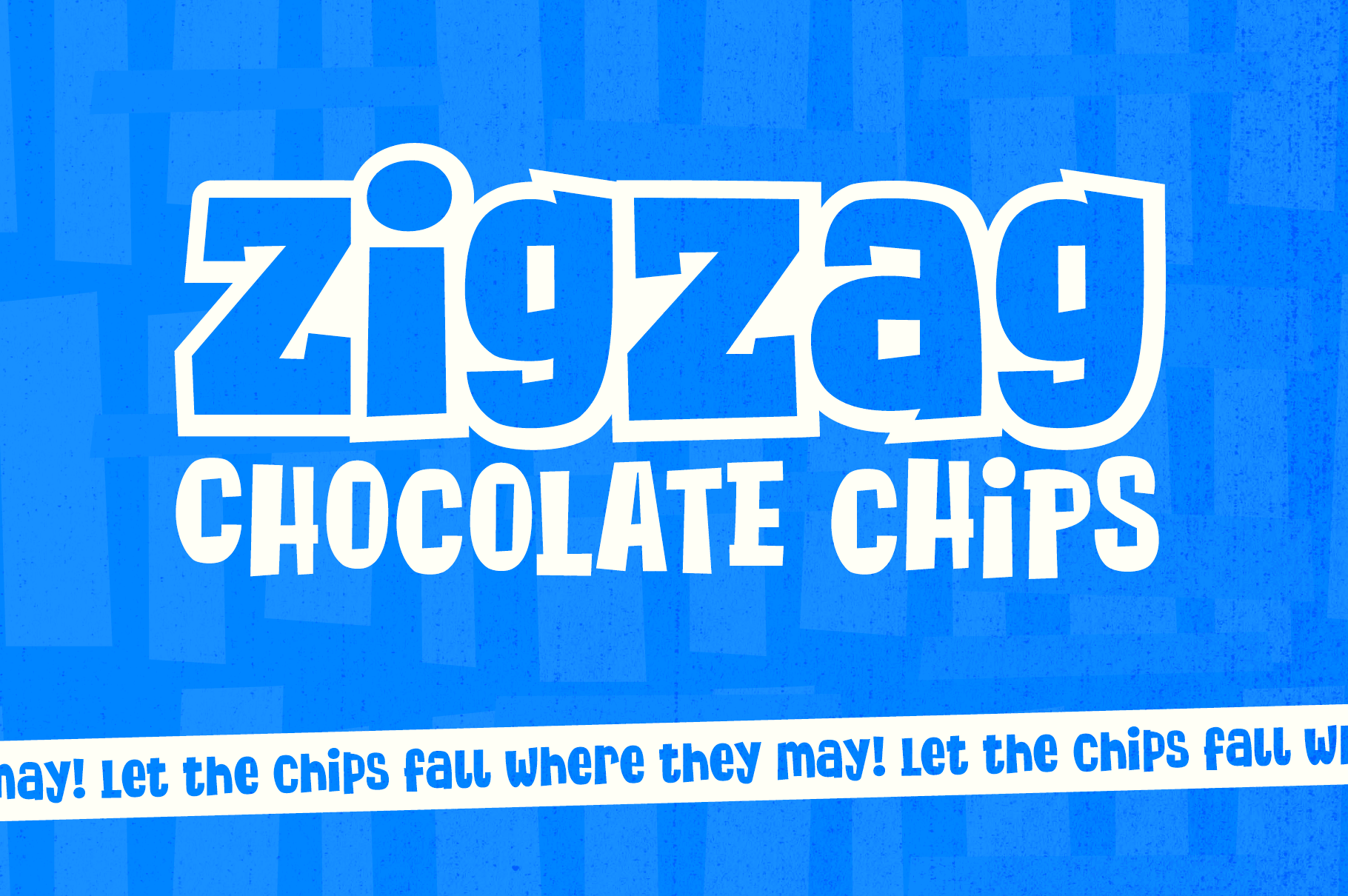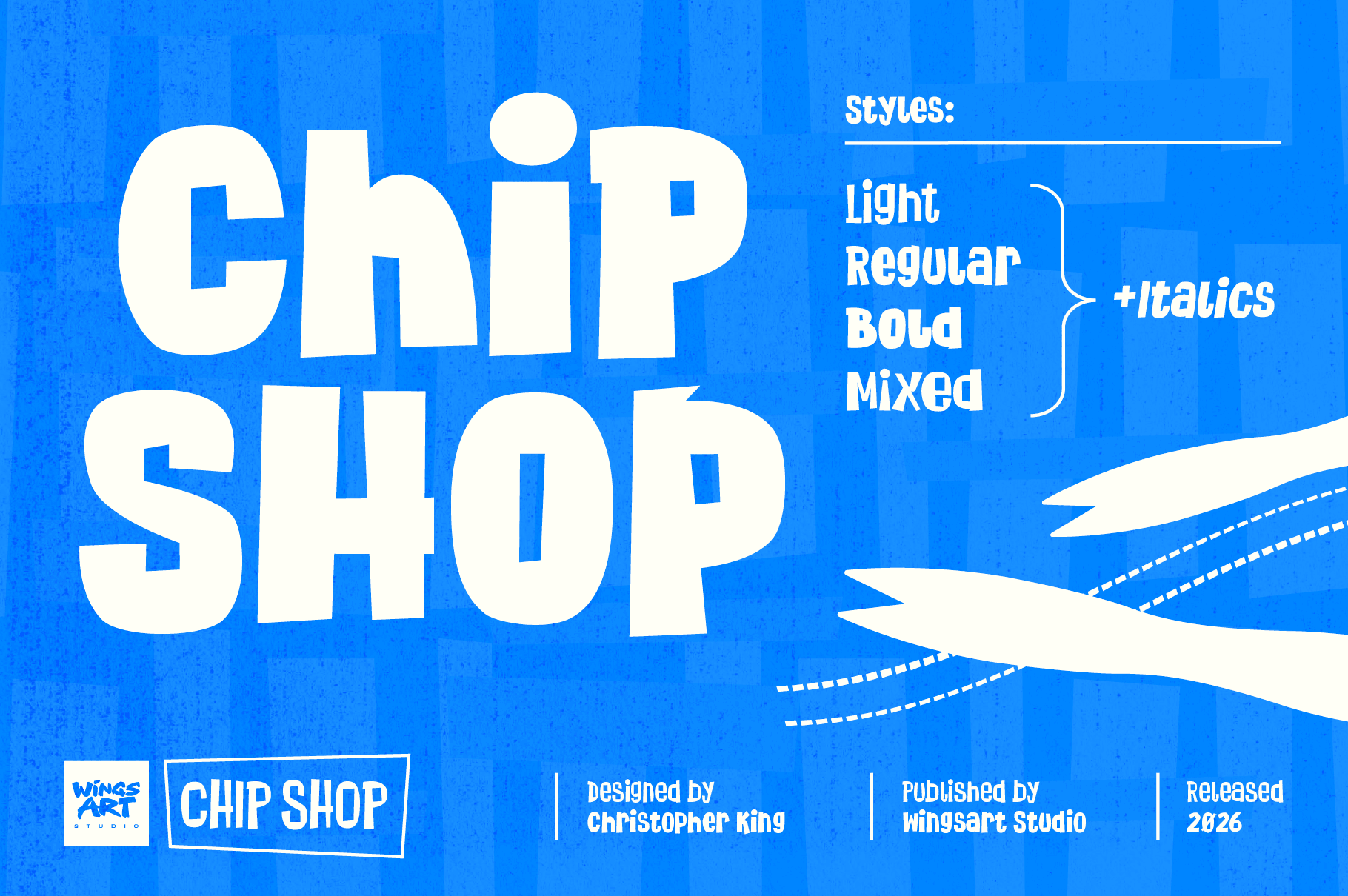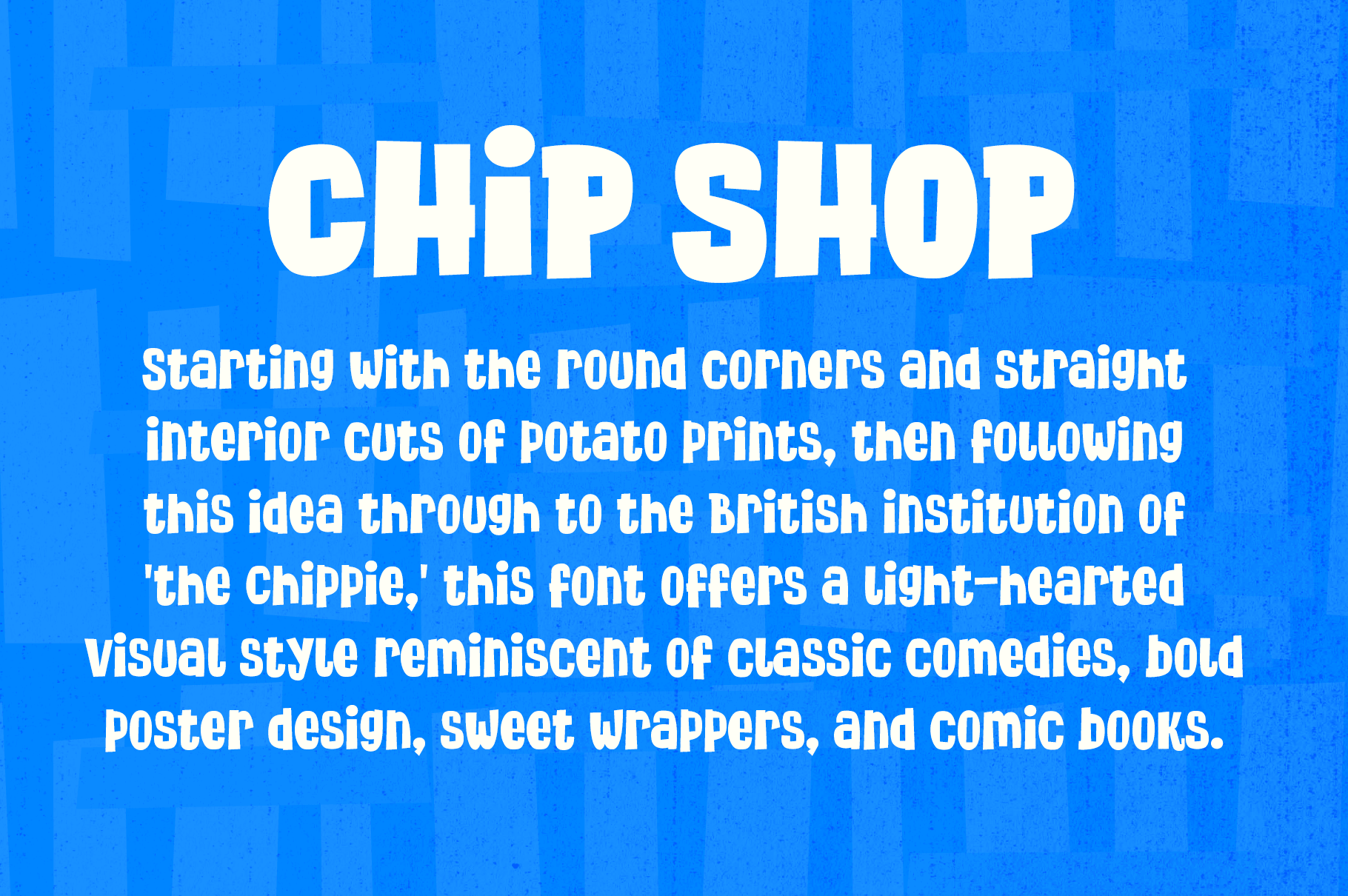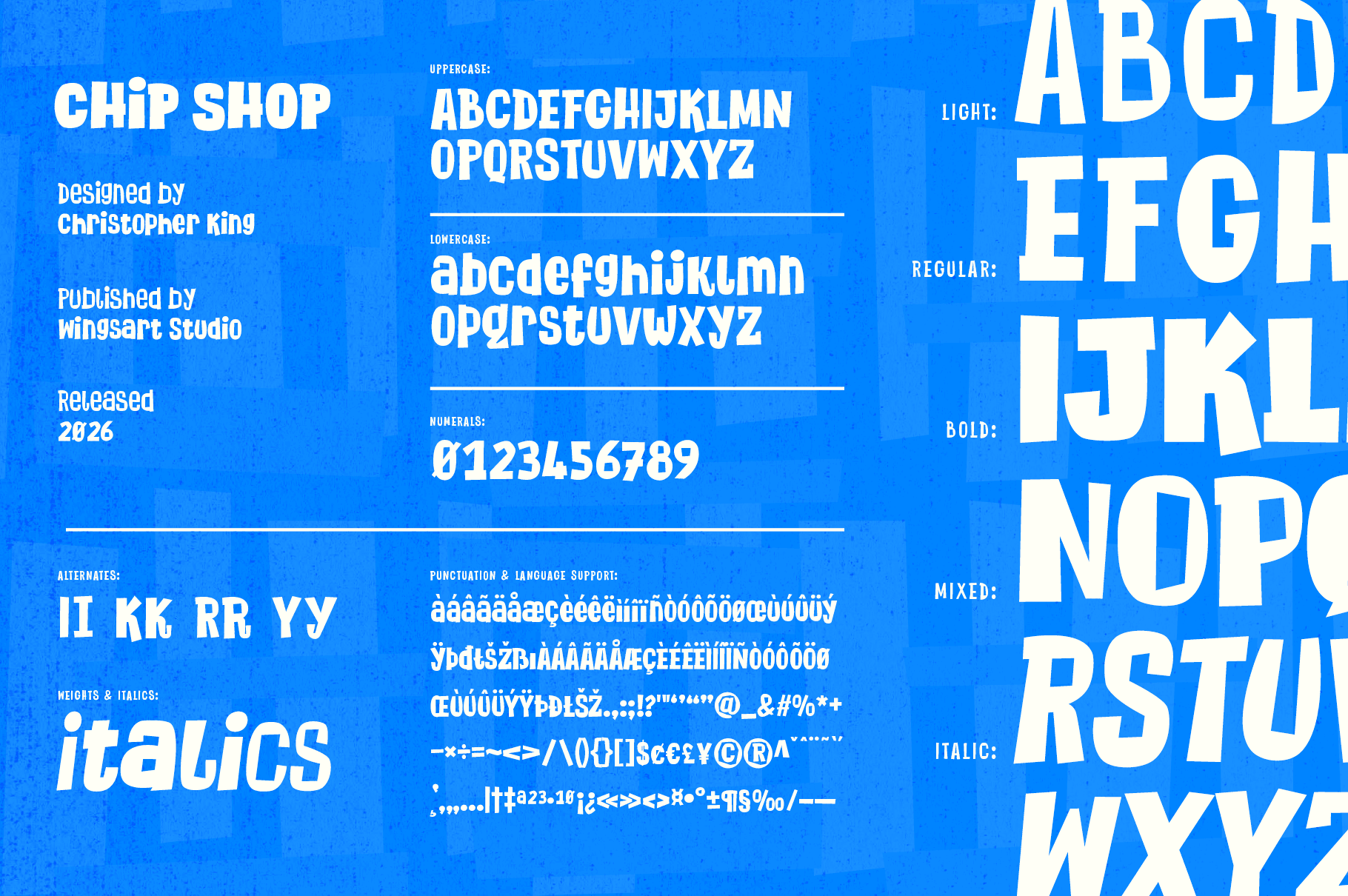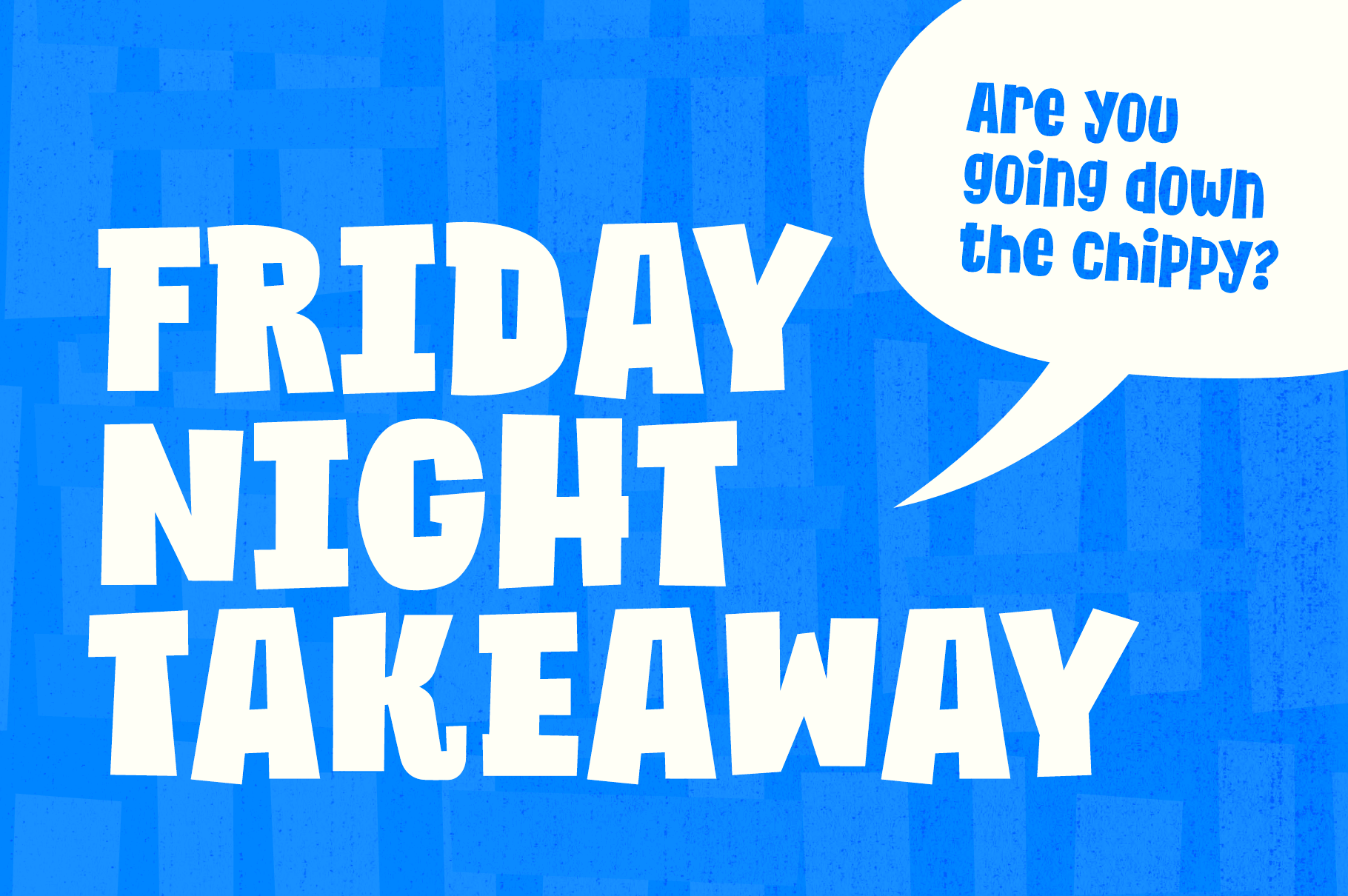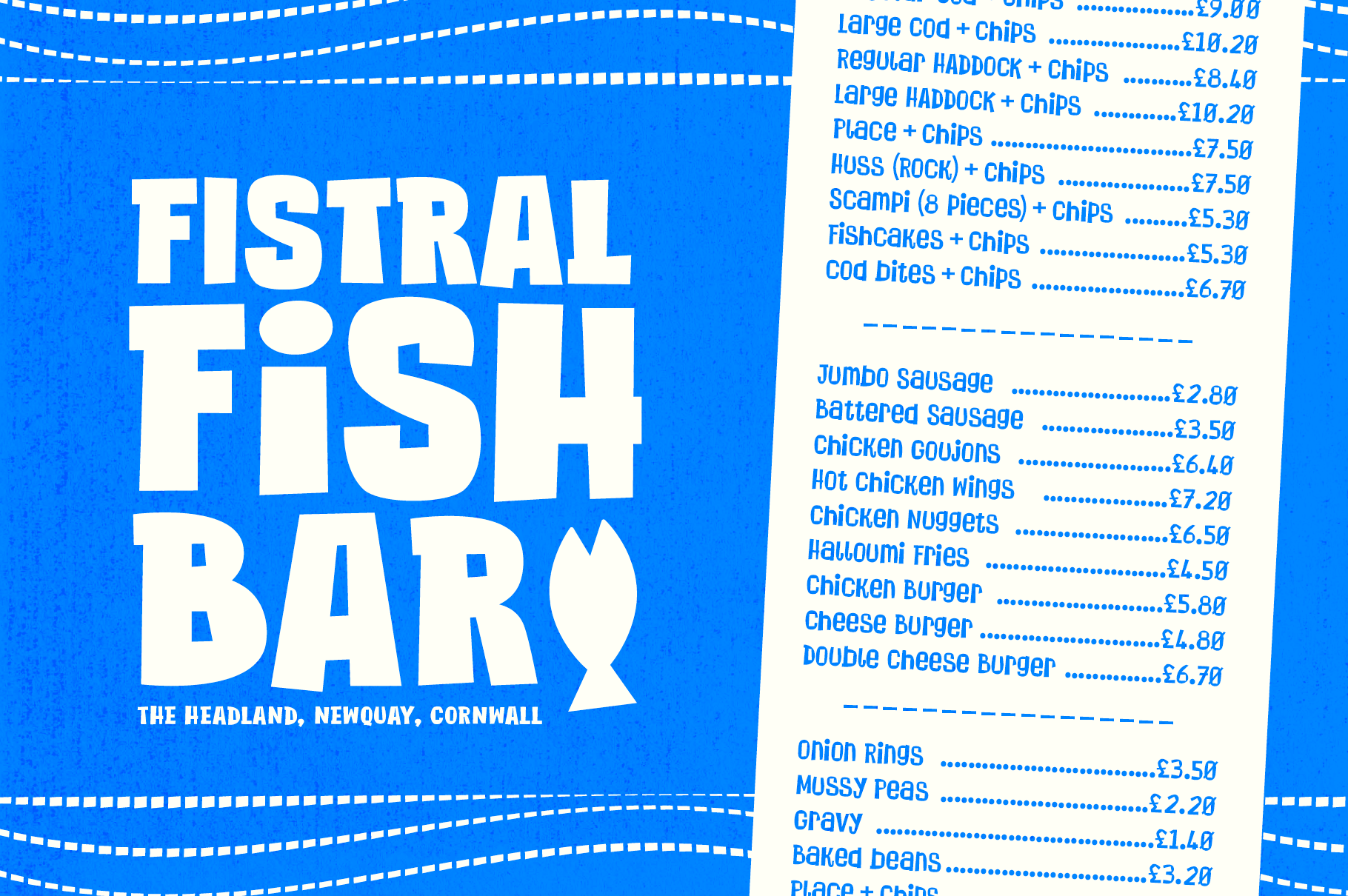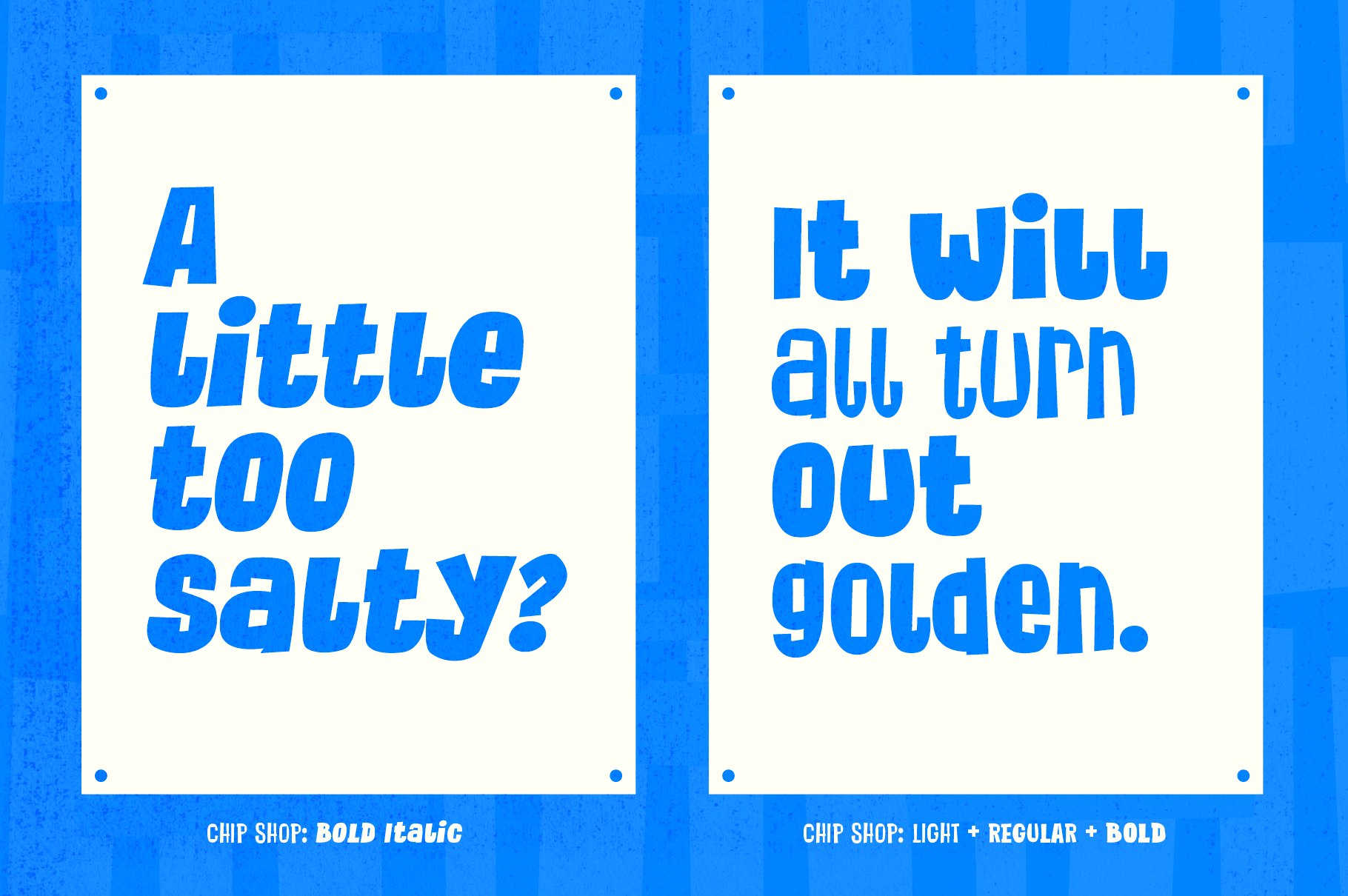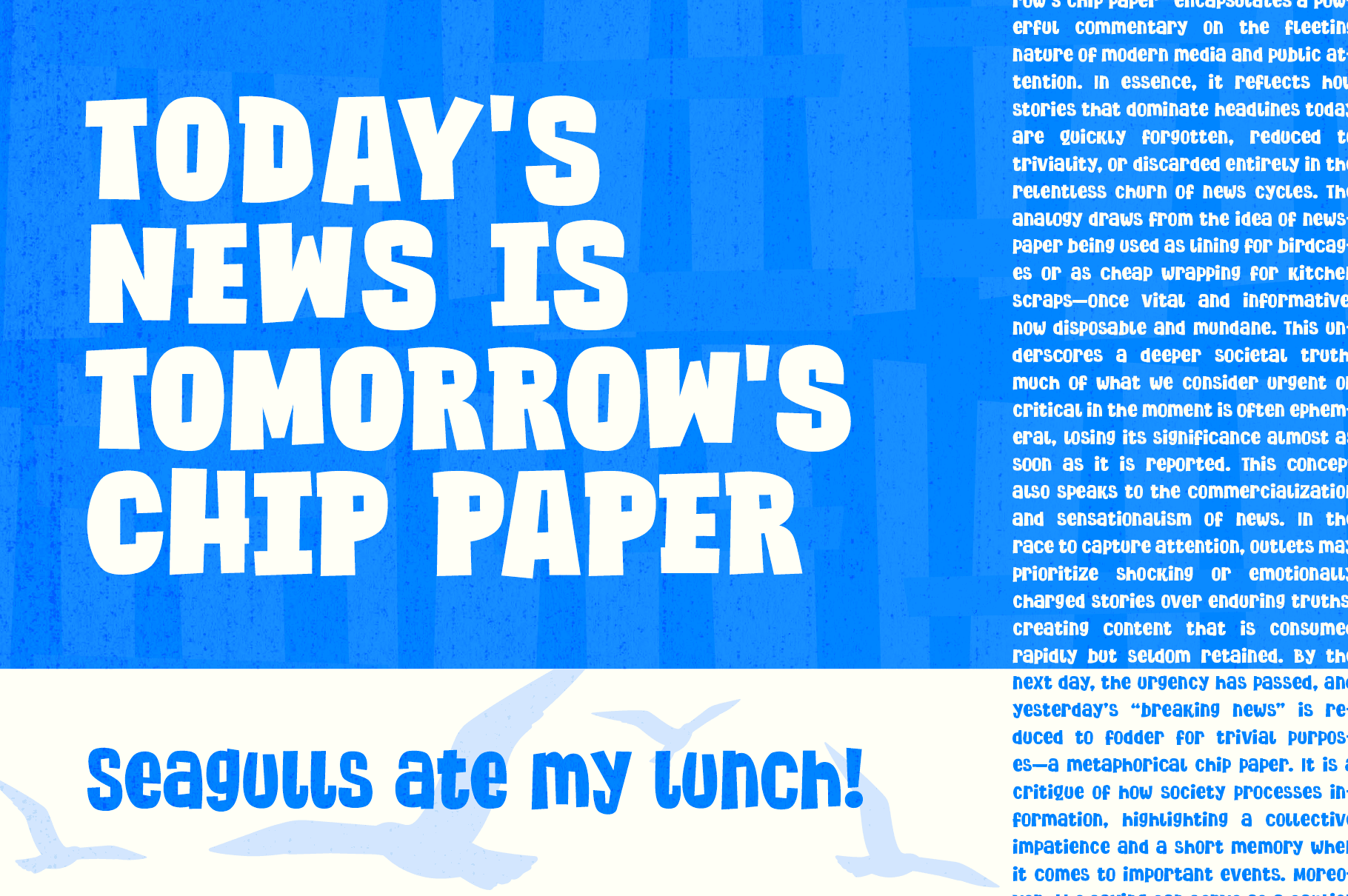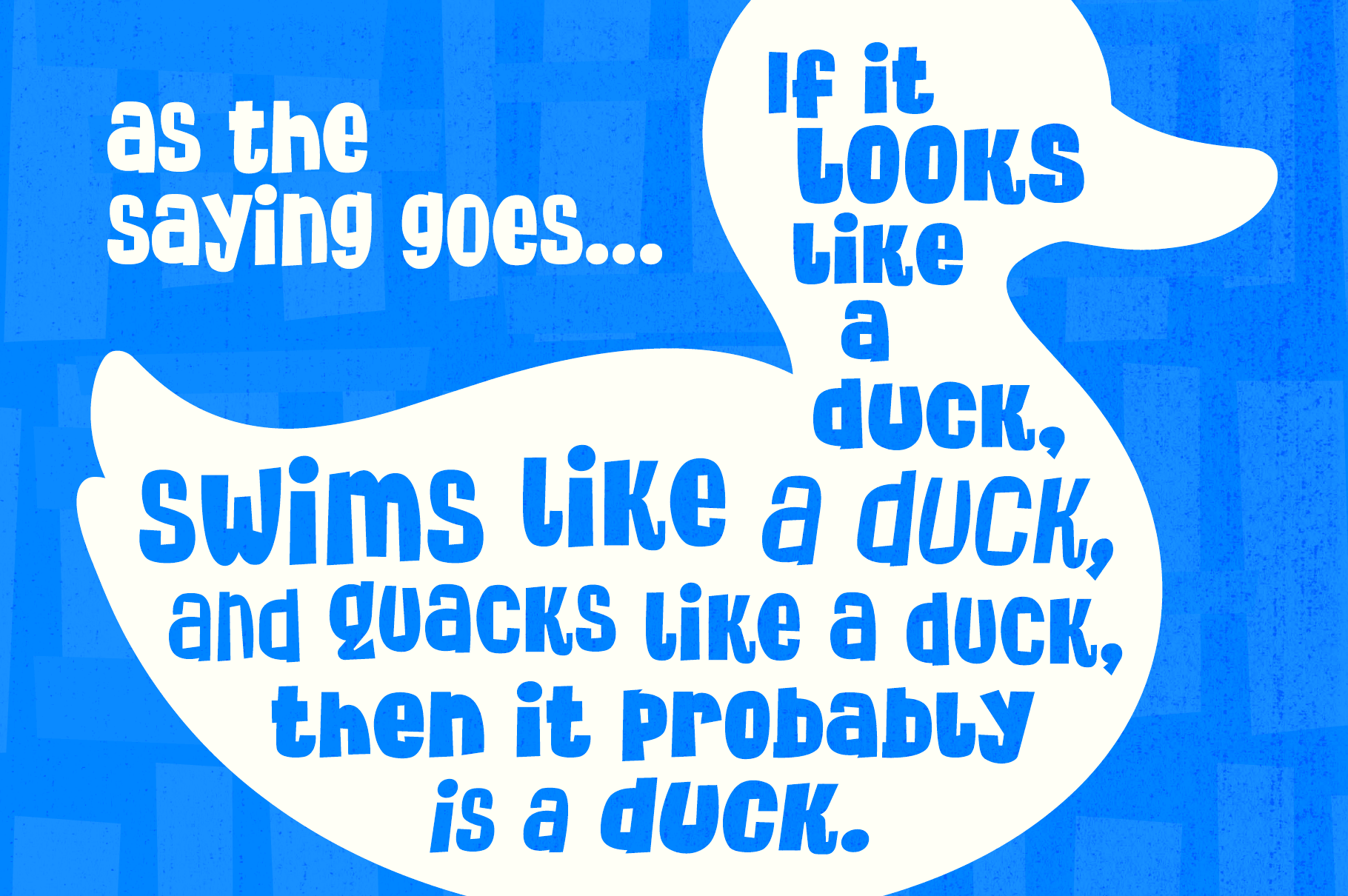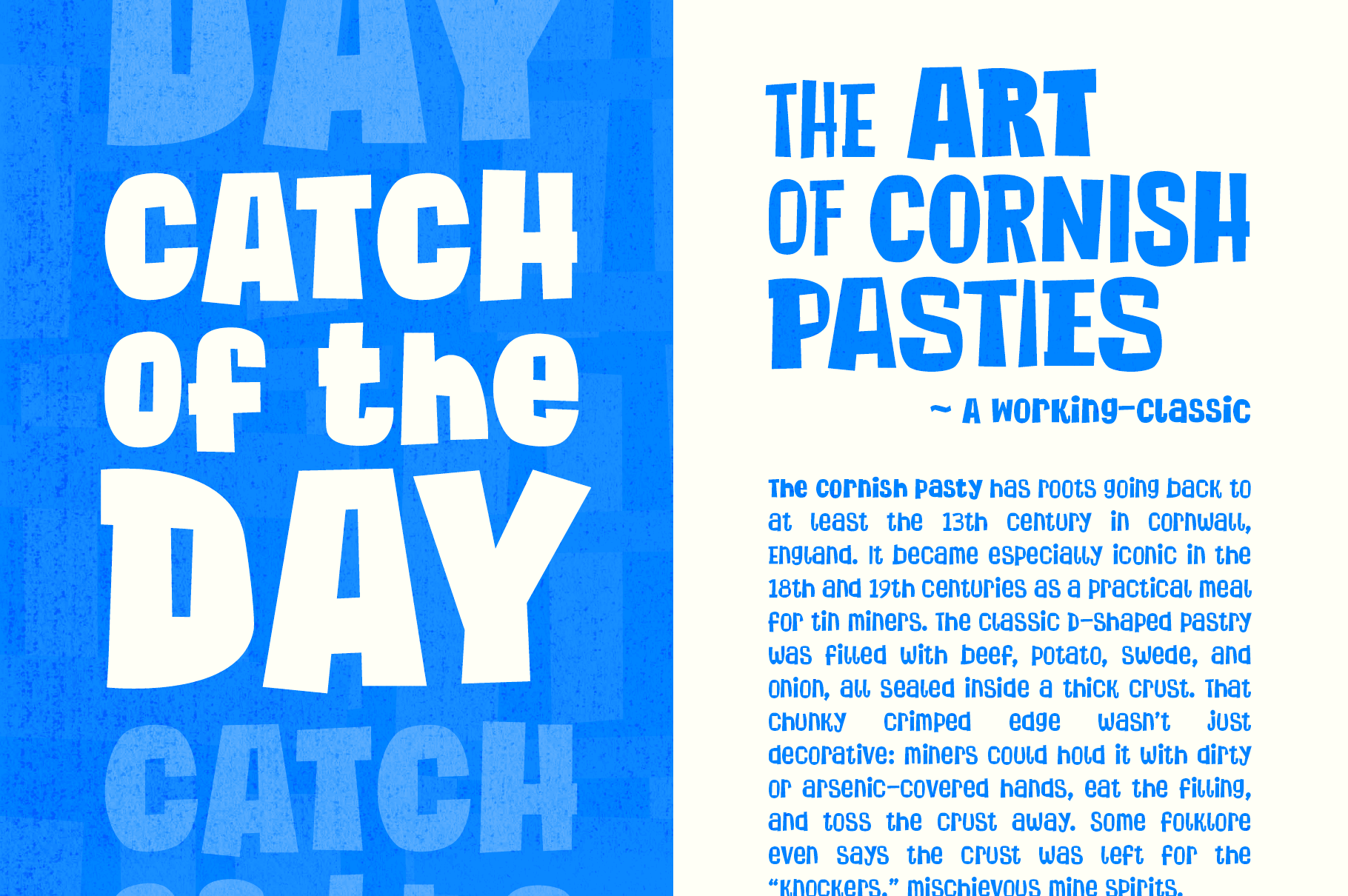
When your Friday night takeaway becomes a font.
A bold sans-serif with a cartoonish edge..
Chip Shop is a display font using simplified shapes to project a wry sense of humour inspired by British comedy.
Starting with the round corners and straight interior cuts of potato prints, then following this idea through to the British institution of ‘the Chippie,’ this font offers a light-hearted visual style reminiscent of classic comedies, bold poster design, sweet wrappers, and comic books.
Chip Shop is a great choice when you’re looking for something bold and expressive, with an intrinsic humour.
Offering light, regular, and bold weights, plus a mixed weight stylistic alternative, Chip Shop is a versatile family that works comfortably across a range of display sizes, with a legible underlying framework that is particularly suited to titles, headers, and sub-headers. The family includes a complete uppercase and lowercase alphabet, numerals, punctuation, symbols, and multilingual support. All weights also come with complete italic versions.
- Light
- Regular
- Bold
- Mixed (Stylistic Alternative)
- Italic versions for all styles